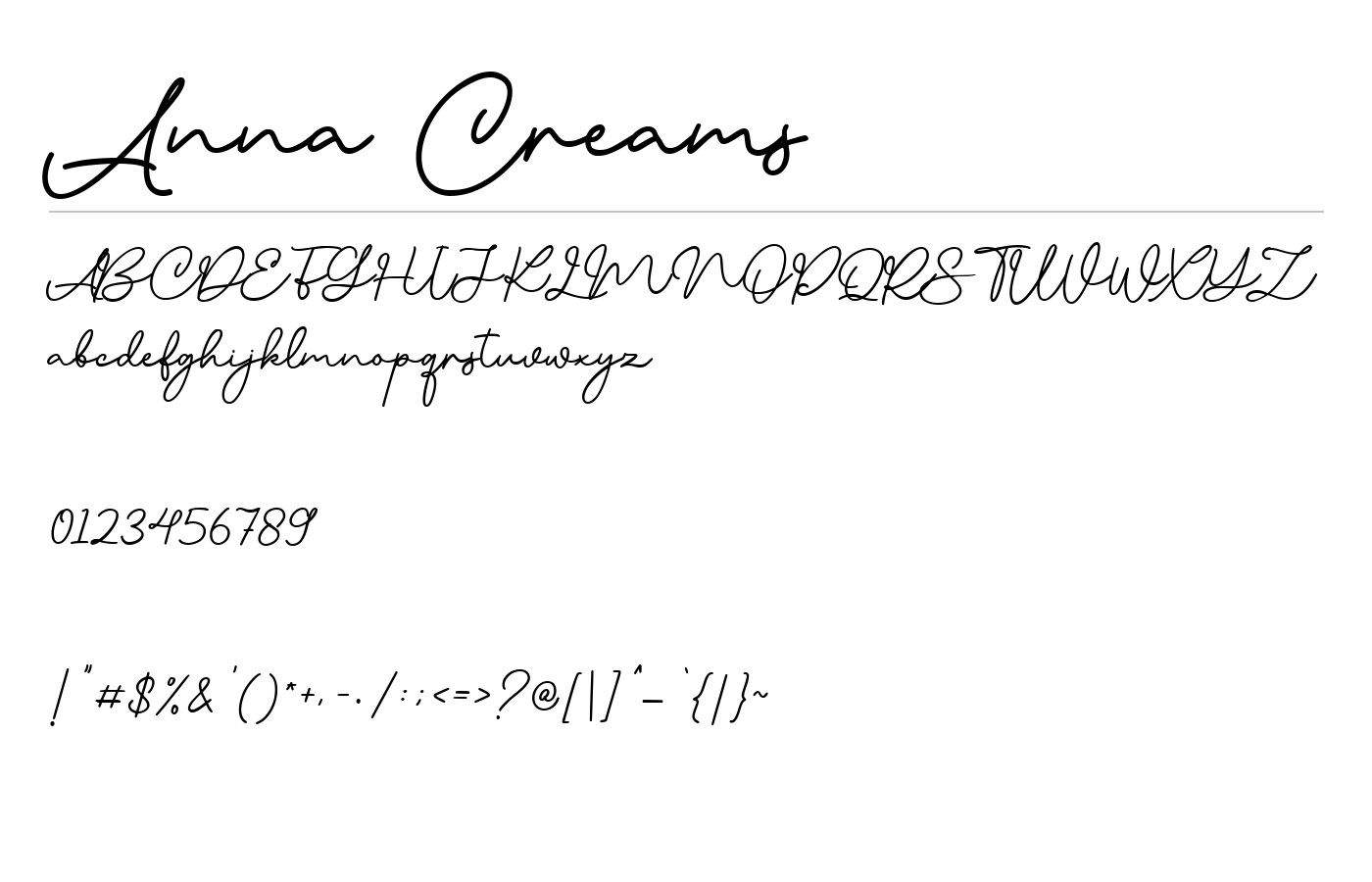
Anna Creams is a delicate, elegant script font with a refined, hand-drawn feel characterized by smooth, flowing strokes and a slightly whimsical touch. Its light weight and tall, slender letterforms create an airy and graceful appearance, making it perfect for feminine branding, invitations, and creative logo design where a personal and stylish impression is desired. This font shines in contexts that call for a sense of sophistication combined with approachable charm.
Anna Creams Font
About Anna Creams Font
| Font family | Anna Creams Font |
| Designer | MaulanaCreative |